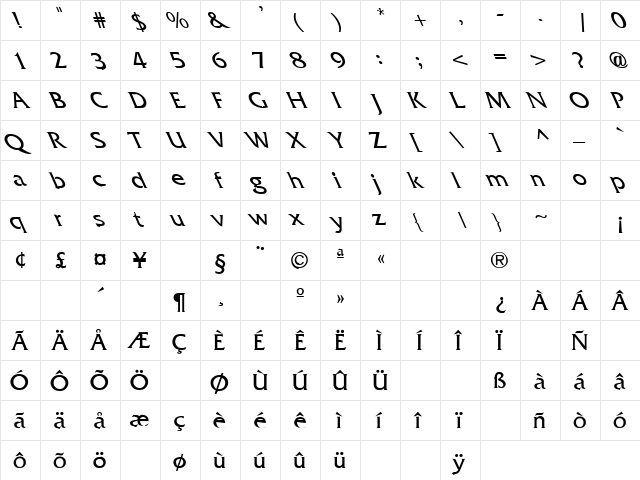
Keep Talking 7 Regular
Design Context for Keep Talking 7 Typeface
Keep Talking 7 offers clean, dependable letterforms without strong stylistic allegiance, making it a practical choice for designers who need flexibility.